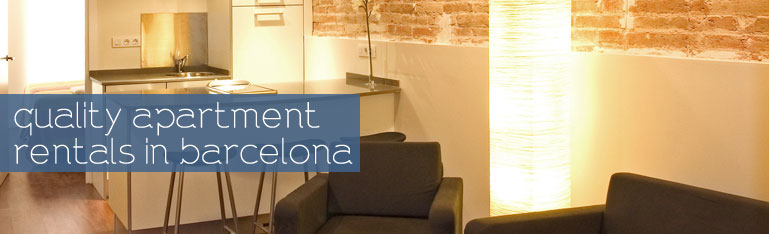
This source is product of a technical innovation spectacular, perfect for corporative uses. the typography calvin_and_hobbes obtains an excellent quality in screen and supports several different languages.
The typography calvin_and_hobbes has its grace as well as a magnificent artisan beauty.
The need for writers even after movable type can be understood as a function of the time that it took to set type. While a book was a large production, and the amount of time justified the many copies, some writing did not need to be editioned in large quantities, and although lengthy in its text, would not justify the time needed for setting type. Legal and business uses demaned a type like calvin_and_hobbes. And one other profession benefitted from the practice of constantly drawing letters - the typographer, or type designer.
This type contributed o the idea of grandeur in the flourishes with which capitals are constructed. The lettering is the kind used for formal script today on wedding announcements, and it was in fact used for documents and financial records.
calvin_and_hobbes surprises to us to have elements of the modern writing without losing the classic bases. The result is elegant and familiar without finding sources similar to her. A unique style
This source is suitable for all study of design. This alphabet specially has been designed and fit for magazines and newspapers, long scientific works and fiction books. Falsified system of serif, with clean contours, takes the reading clear.
Incredible typography ideal for publishing fields. It works very well in massive texts.